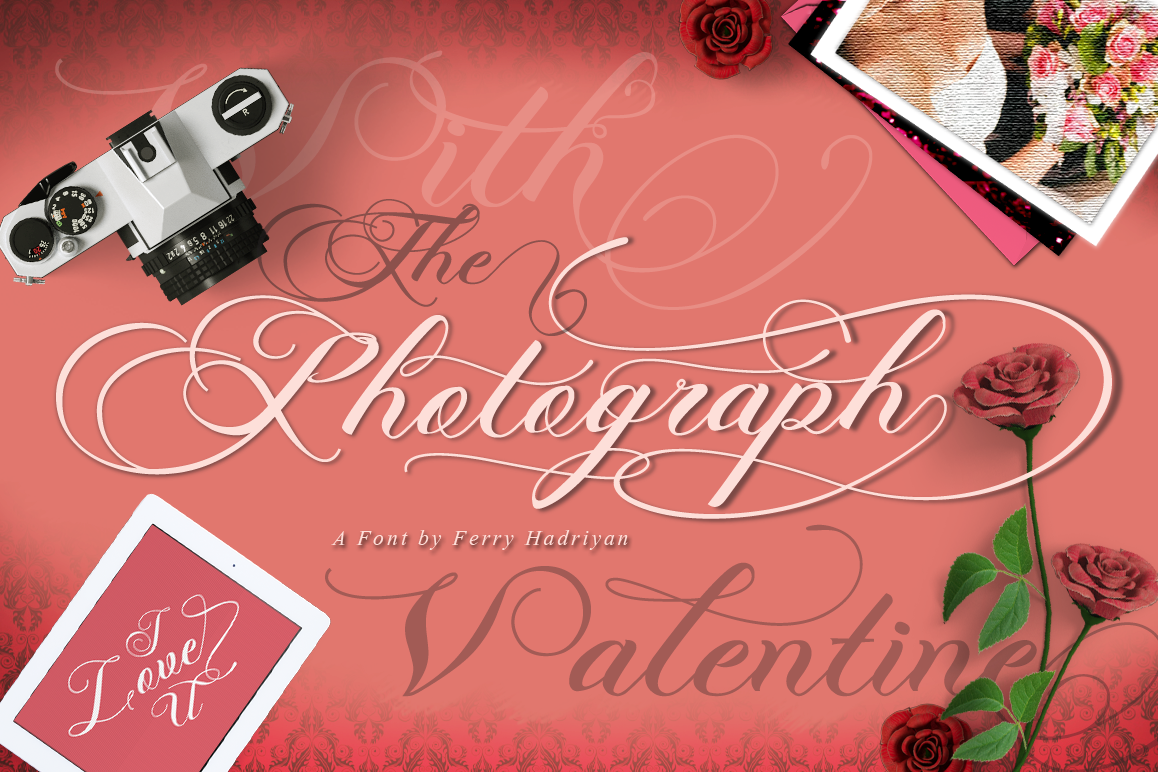
Photograph - Script Wedding Font
Photograph is script font with modern calligraphy style,so much feature OpenType with swashes, 11 stylistic set, standard ligatures, Discreationary Ligatures, Titling, Terminal Forms, etc, Suitable for design, element design, wedding, event, t-shirt, logo, badges, sticker, and awesome work, etc...
Feauture Of The Font:
- Combination alternative ligature fonts
- Standard Ligatures, Stylistic Set, Multilanguage Characters, etc
- Modern Calligraphy Typeface
- Multilanguage Support
- Unique style fonts
- Easy customize
Really pretty font!! Love the curls and swaches. Ver nice and clean font! Used more often here!
Absolutely beautiful!
Beautiful, elegant...a must-have for wedding work.